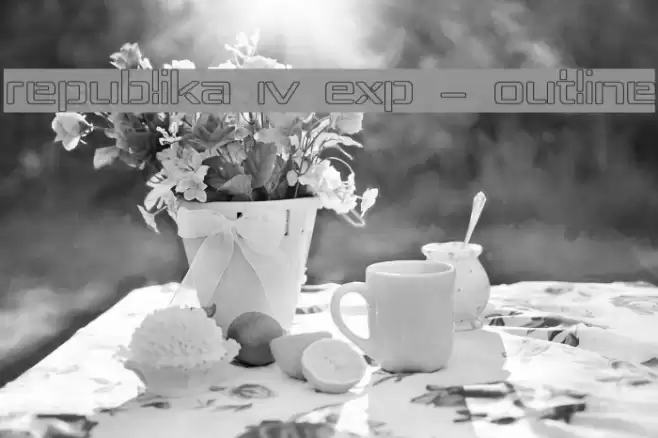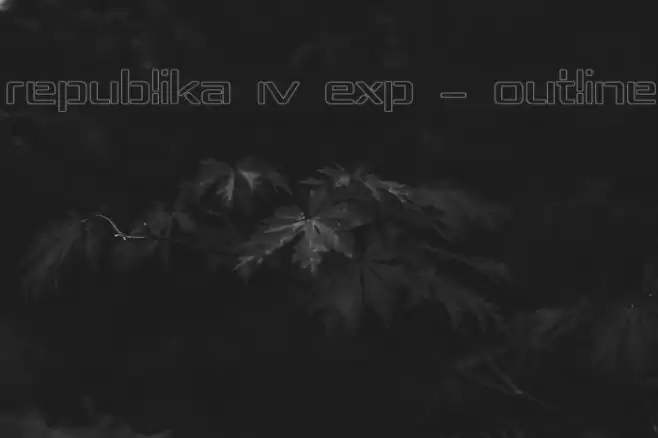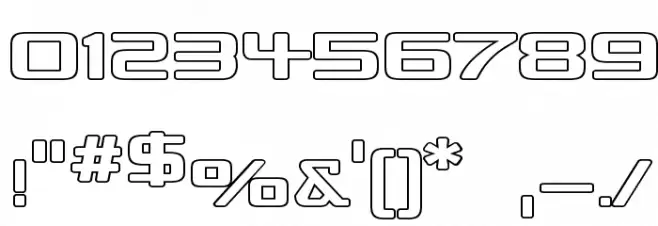
Republika IV Exp - Outline Font
Republika IV Exp - Outline Description
This font features a modern, geometric outline style with a futuristic aesthetic. Each character is constructed with clean, straight lines and sharp angles, giving it a technical and structured appearance. The uppercase and lowercase letters maintain a consistent height, contributing to a uniform look. The numerals and special characters follow the same design principles, ensuring cohesion across all glyphs. The outline effect adds a sense of depth and dimension, making it suitable for eye-catching designs. Its unique style is ideal for projects that require a contemporary and innovative touch.
A modern, geometric outline font with a futuristic and structured design from Uncategorized fonts.
- Proposed Projects: Ideal for technology branding, sci-fi themed projects, digital art, and modern advertising.